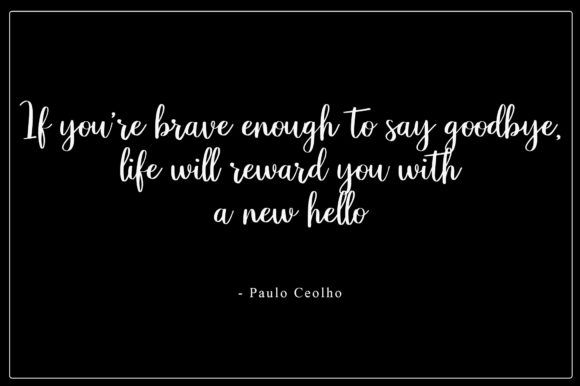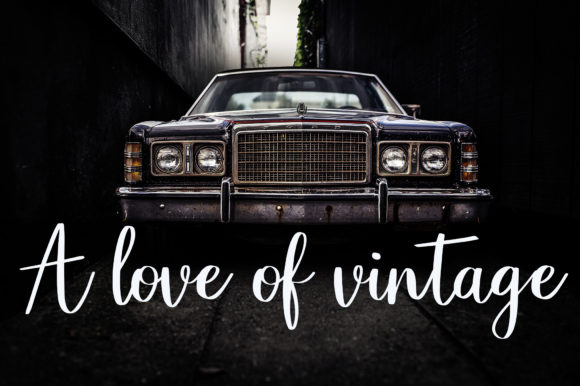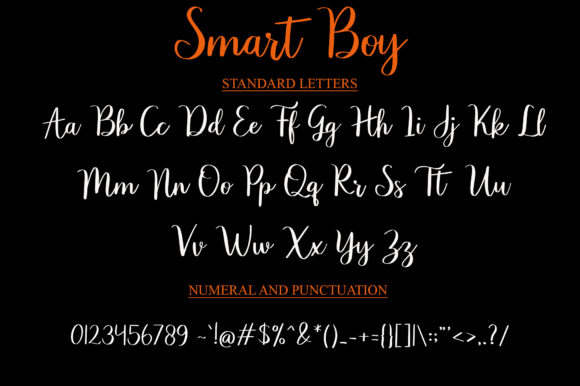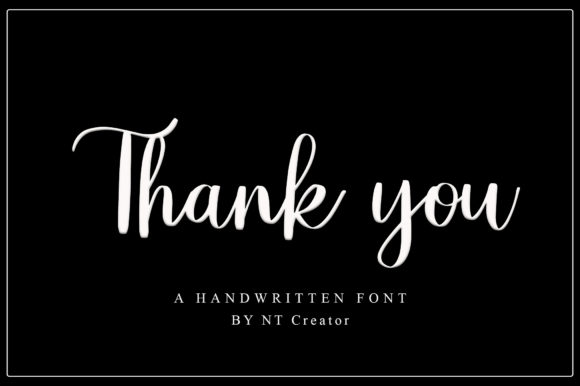
Smart Boy Font
About Smart Boy Font
Smart Boy is a lovely and delicate script font that exudes elegance and class. This font was particularly crafted for those who need a beautiful and refreshing look to their designs.